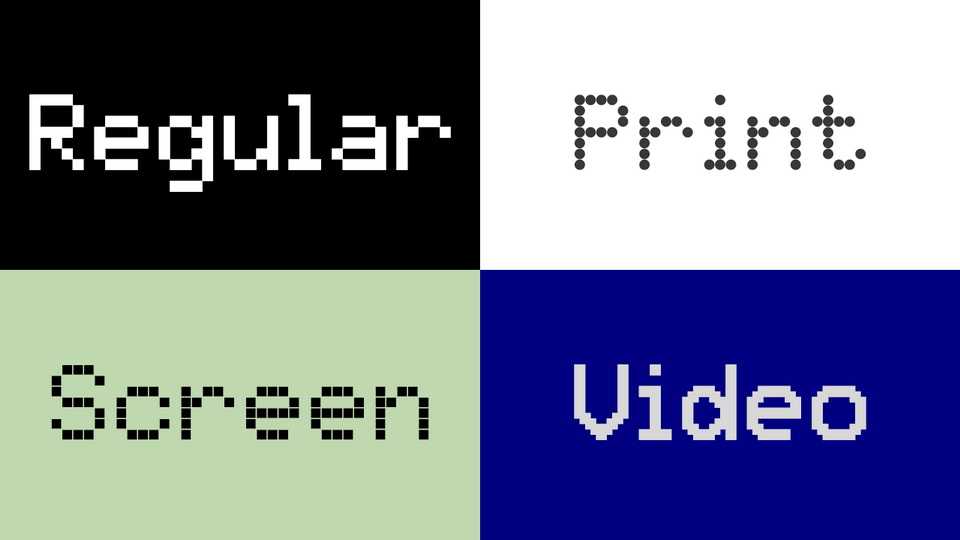
Download Matrix Sans typeface, a set of pixelated, retro-style fonts based on the classic 5×7 dot matrix capitals. The design of Matrix Sans captures the look of this ubiquitous format, incorporating the best features from historical examples.
Designer: Brad Neil